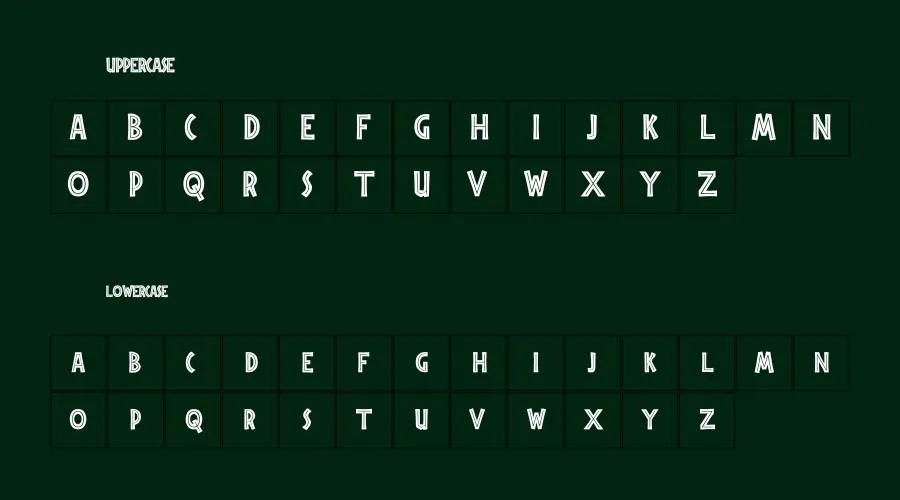
About Jurassic Park Font
Jurassic Park Font embodies typographic excellence through its masterful combination of elegant proportions and visual appeal. Created for advertising headers, this typeface delivers exceptional expressiveness and functional utility across all applications. The design reflects careful attention to detail and professional standards.
Advanced capabilities include distinctive rounded apexes and versatile expert sets, giving designers creative control. When used in colophons, Jurassic Park Font exhibits remarkable reproduction fidelity. The harmonious balance between joint construction and technical authority sets this typeface apart.